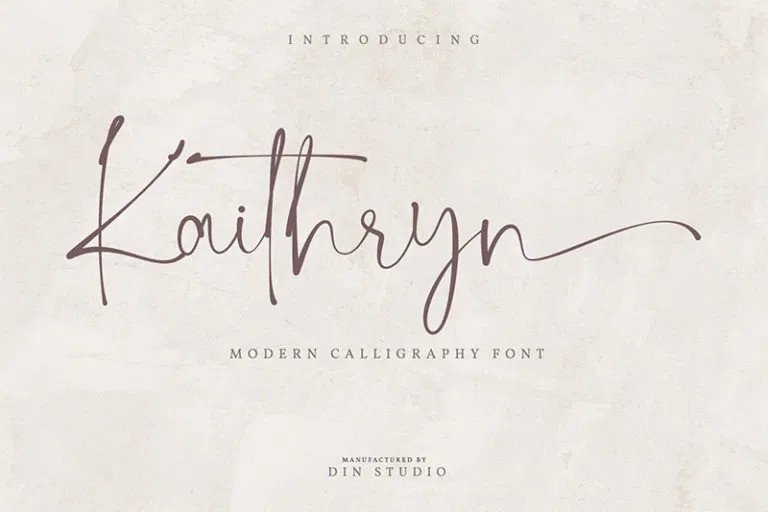
Kaithryn Script Font
Introducing, Kaithryn Script Font– A beautiful signature script based on manual hand writing. The stylistic alternate and the ligatures make this font looks a real hand writing instead of typing a font. Made from font designer named Din Studio.
This typeface is a modern calligraphy font. It brings a beautiful and attractive typeface. Made for any professional project branding. It is the best for logos, branding, wedding and quotes.